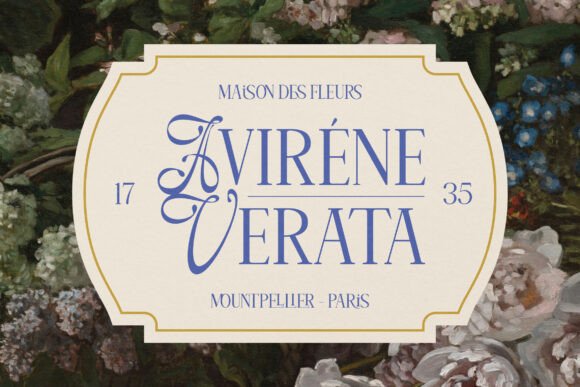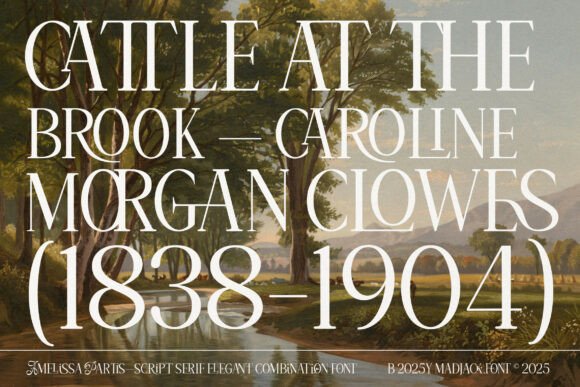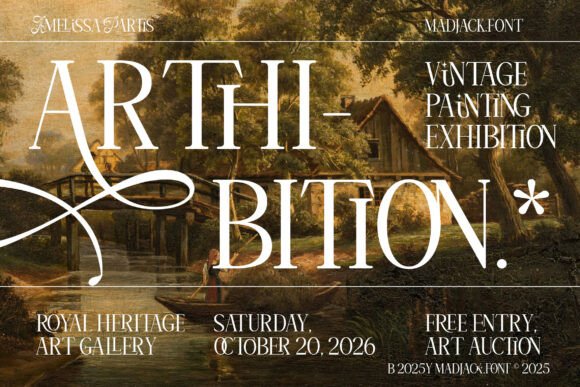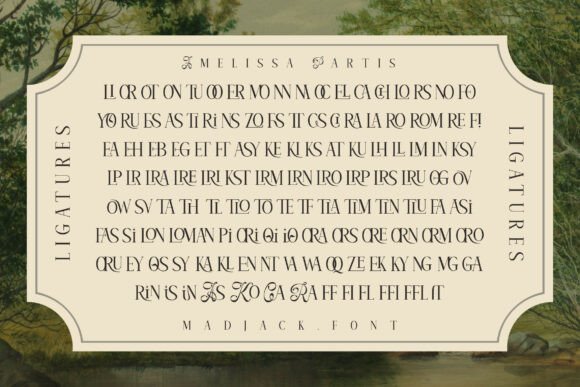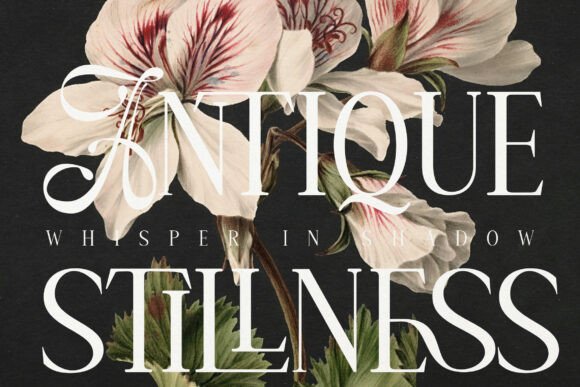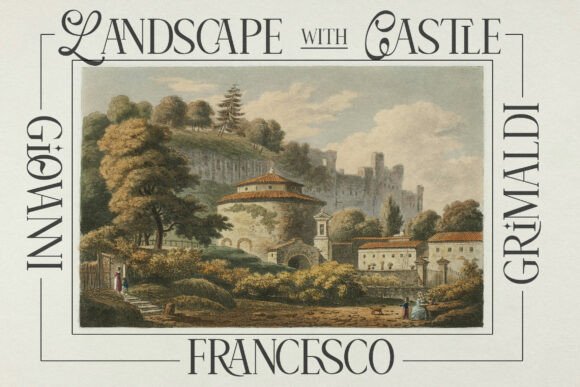
Discover the Timeless Elegance of Amelissa Partis Font
In the world of typography, few fonts manage to capture the essence of timeless elegance and nostalgic charm as effectively as Amelissa Partis. This stunning blend of calligraphy and serif elements has been designed to elevate any creative project, offering a sophisticated aesthetic that is both versatile and captivating. In this article, we’ll delve into the unique features of Amelissa Partis, explore its uses, and provide tips on how to make the most of this beautiful typeface.
The Unique Characteristics of Amelissa Partis
Amelissa Partis is more than just a font; it’s an experience. With its subtle details and graceful flow, this typeface exudes a sense of refinement and luxury. The blend of calligraphy and serif elements creates a distinctive look that is both classic and contemporary. The font comes in two distinct versions, providing designers with flexibility and options for various projects.
Enhancing Creative Projects with Amelissa Partis
Whether you’re working on branding, editorial layouts, or social media visuals, Amelissa Partis has the power to transform your designs. Its elegant and sophisticated aesthetic adds depth and sophistication, making it perfect for projects that require a touch of class. From luxury brand logos to editorial spreads and social media posts, Amelissa Partis can elevate your work and leave a lasting impression.
One of the standout features of Amelissa Partis is its versatility. The font’s aesthetic is open to endless creative possibilities, making it an essential addition to any designer’s collection. Whether you’re creating a website, designing a brochure, or crafting a social media campaign, Amelissa Partis can help you achieve your vision.
Maximizing the Potential of Amelissa Partis
To truly maximize the beautiful ligatures and connected letterforms of Amelissa Partis, it’s essential to use software that supports OpenType fonts. This will allow you to take full advantage of the font’s features and create stunning designs that showcase its elegance and sophistication.
Tips for Using Amelissa Partis
- Experiment with different sizes and styles: Amelissa Partis comes in two distinct versions, so don’t be afraid to experiment with different sizes and styles to find the perfect fit for your project.
- Use it for headlines and body text: Amelissa Partis is perfect for headlines, but it can also be used for body text to create a cohesive and elegant look.
- Pair it with other fonts: Amelissa Partis can be paired with other fonts to create a unique and visually appealing combination.
- Take advantage of ligatures and swashes: Amelissa Partis features beautiful ligatures and swashes, so be sure to take advantage of these to add an extra touch of elegance to your designs.
Why Amelissa Partis is a Must-Have for Designers
Amelissa Partis is more than just a font; it’s a design essential. Its timeless elegance, nostalgic charm, and versatility make it a must-have for designers who want to create stunning and sophisticated designs. Whether you’re a seasoned designer or just starting out, Amelissa Partis is a valuable addition to your collection.
In conclusion, Amelissa Partis is a beautiful and sophisticated typeface that can elevate any creative project. Its unique blend of calligraphy and serif elements, combined with its versatility and elegance, make it a must-have for designers. By following the tips outlined in this article, you can maximize the potential of Amelissa Partis and create stunning designs that showcase its timeless elegance and nostalgic charm.